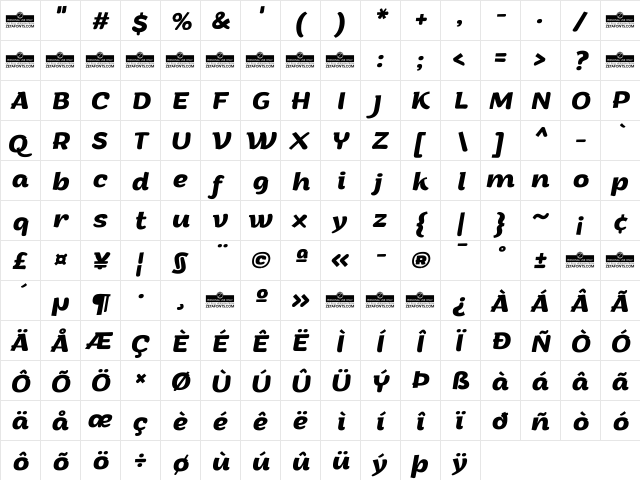
Arturo Trial Bold Italic
Design Context for Arturo Trial Typeface
Arturo Trial offers clean, dependable letterforms without strong stylistic allegiance, making it a practical choice for designers who need flexibility. The slanted form adds forward momentum and visual energy. The heavy weight commands attention and anchors typographic hierarchies.
Pro Tip: Use Arturo Trial for emphasis, pull quotes, and subheadings where its slanted energy can add rhythm to the layout.